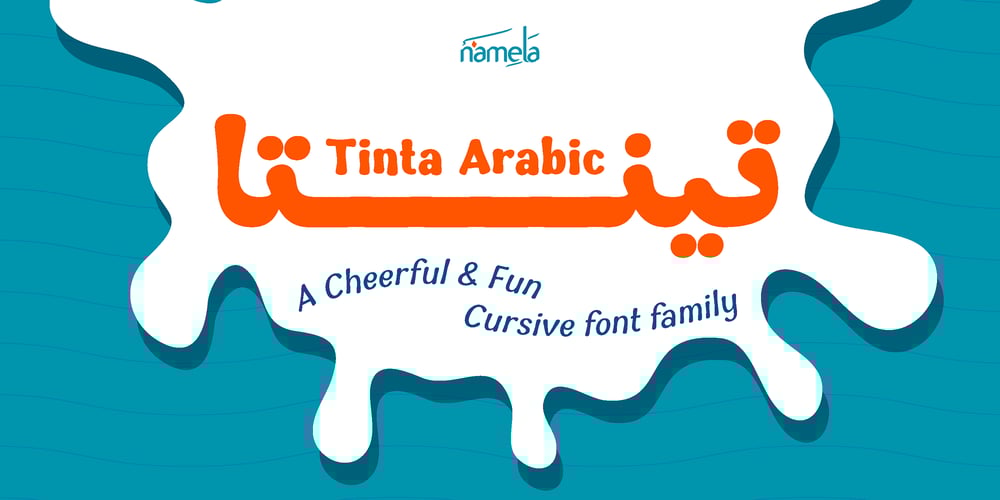
Tinta Arabic Font Family was designed by Nur Syamsi, Bustanul Arifin and published by NamelaType. Tinta Arabic contains 7 styles and family package options. Tinta Arabic is the sibling of Tinta, with with additional Arabic glyphs for more international fun with the addition of Arabic glyphs; Arabic, Urdu, Kurdish Farsi and Jawi.Basic form for arabic font is refers to the arabic Naskhi style, with a cute shape to harmony with Latin.